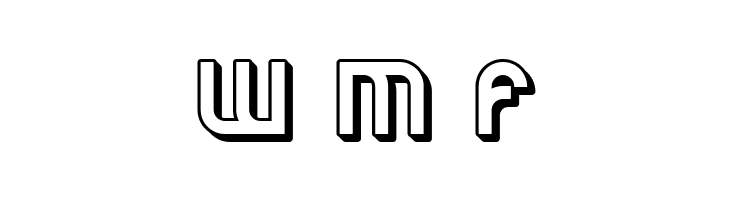
( Amit Kumar )
A bold, angular font with sharp, geometric elements and high contrast.
( Character )
A bold, playful font with diagonal stripes and rounded characters.
A playful, quirky handwritten font with uneven letterforms and a casual appearance.
( Hazel Abbiati - diamondidiocy.tumblr.com )
A pixelated, retro-style font with a blocky, digital appearance.
A bold, rounded font with a playful and friendly style.
A futuristic, bold font with rounded edges and a geometric design.
( Nicolas Coronado - draconiansolo.wordpress.com/ )
A pixelated, retro font with a classic 8-bit digital style.
( Fonts by Royaltype )
A bold, playful font with rounded, hand-drawn characters.
A bold, 3D font with filled interiors and outlined edges, offering a modern and dynamic look.
A playful, bold font with rounded characters and dot embellishments.